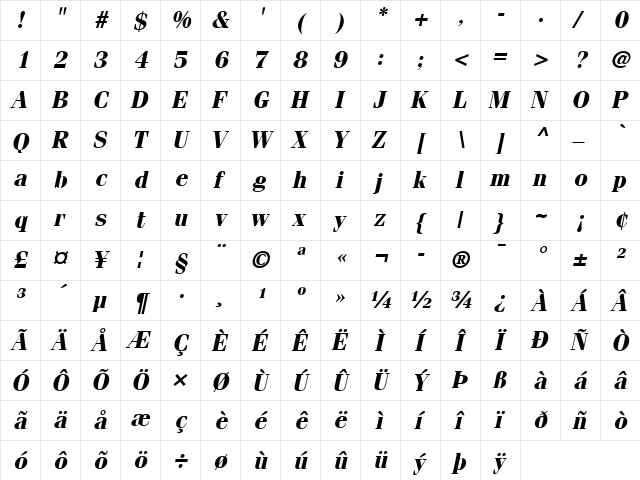
ITCFenice LT Regular Bold Italic Font Preview
Design Context for ITCFenice LT Regular Typeface
ITCFenice LT Regular is a composed and adaptable typeface that performs quietly and consistently across a wide range of design contexts. Its italic angle brings a sense of urgency and motion to the letterforms. The heavy weight commands attention and anchors typographic hierarchies.
Pro Tip: Try ITCFenice LT Regular for annotation and caption copy alongside an upright companion — the contrast in angle creates a dynamic but ordered typographic system.